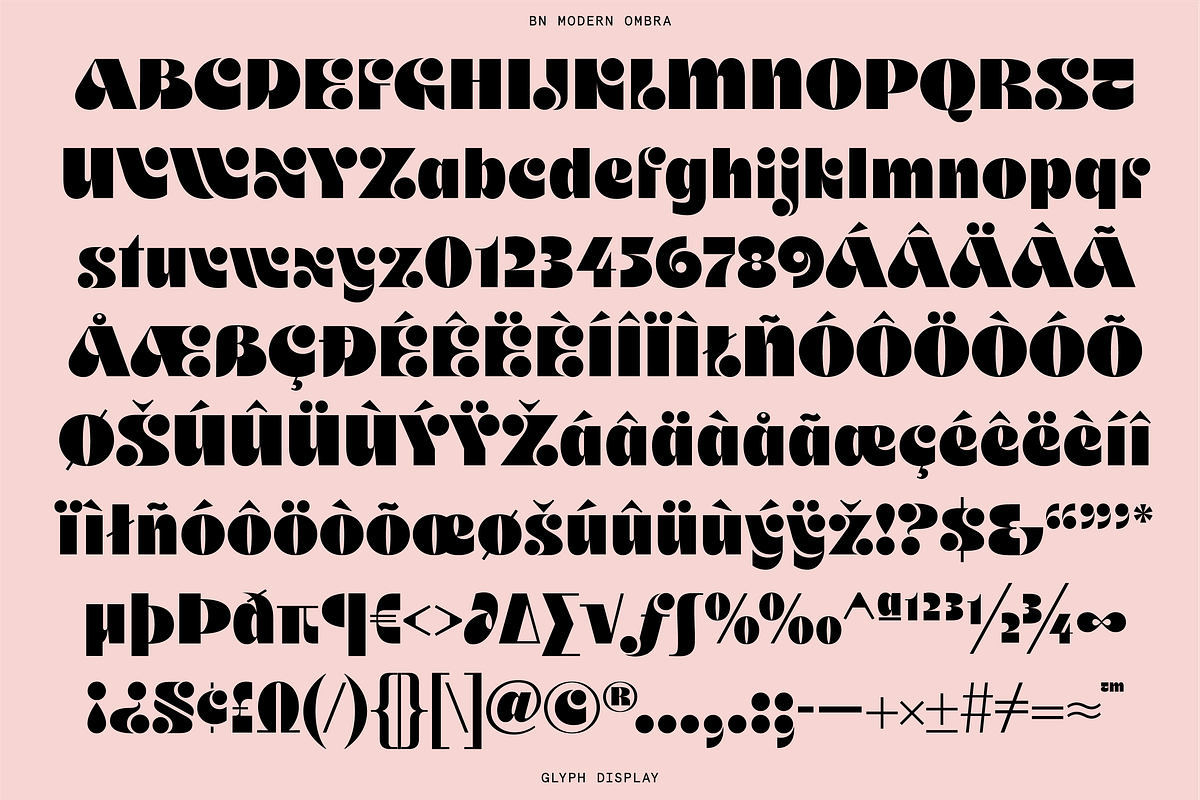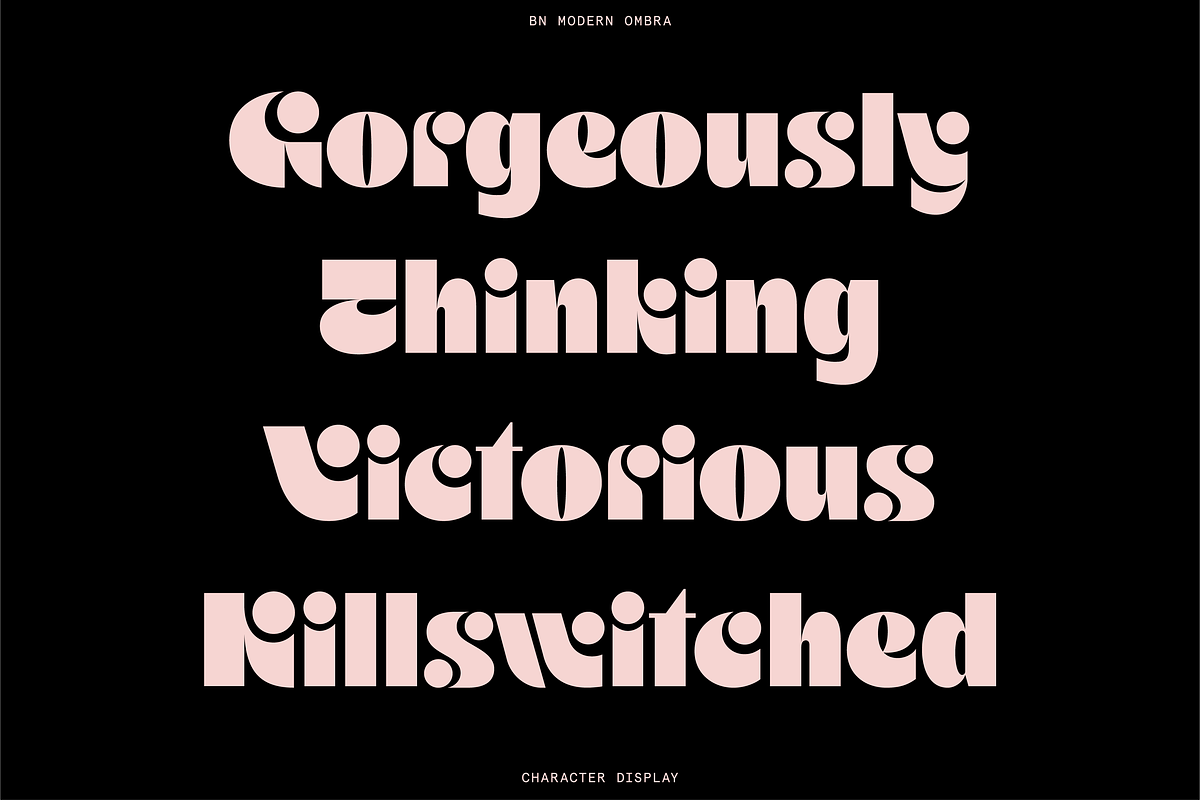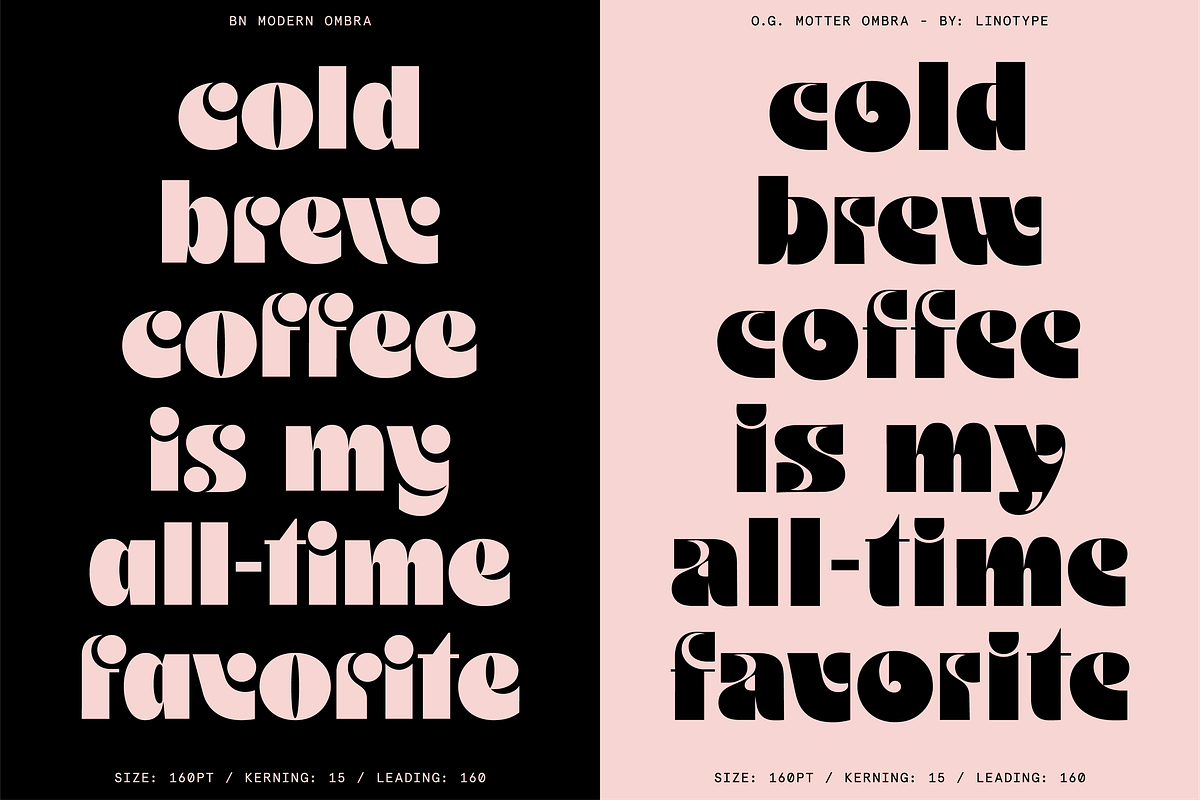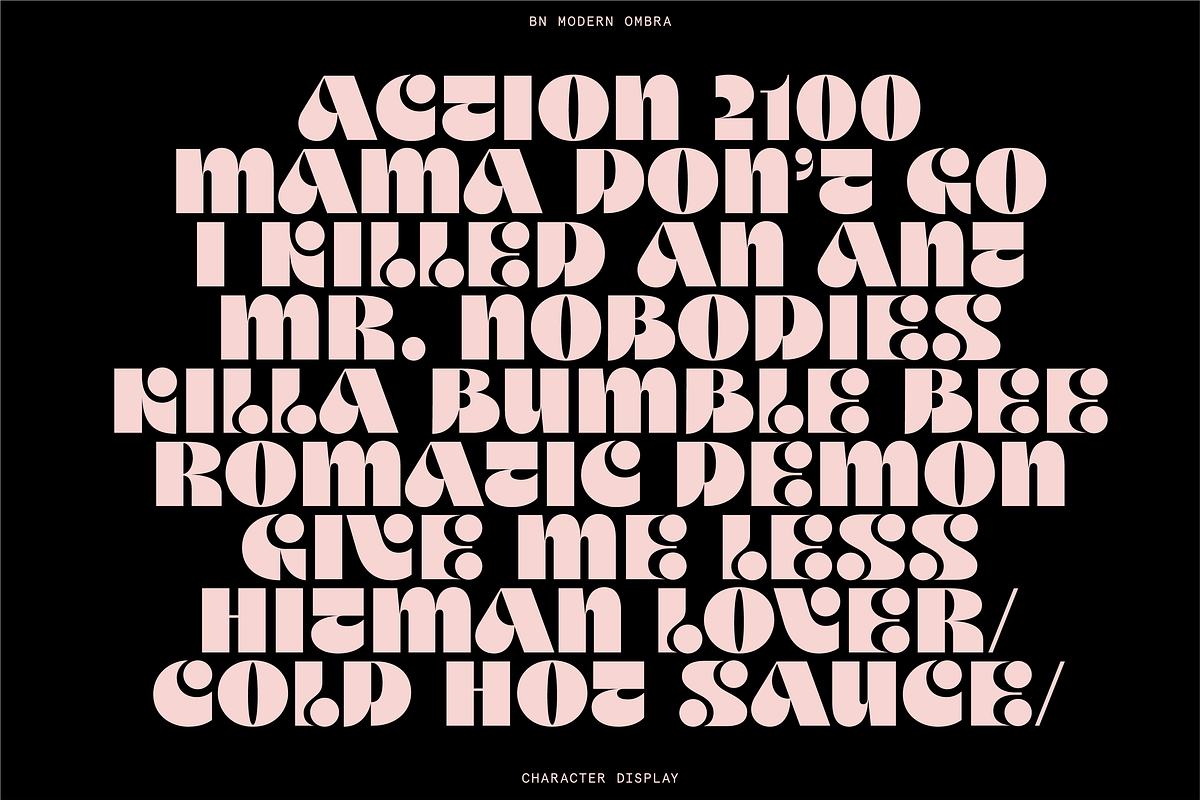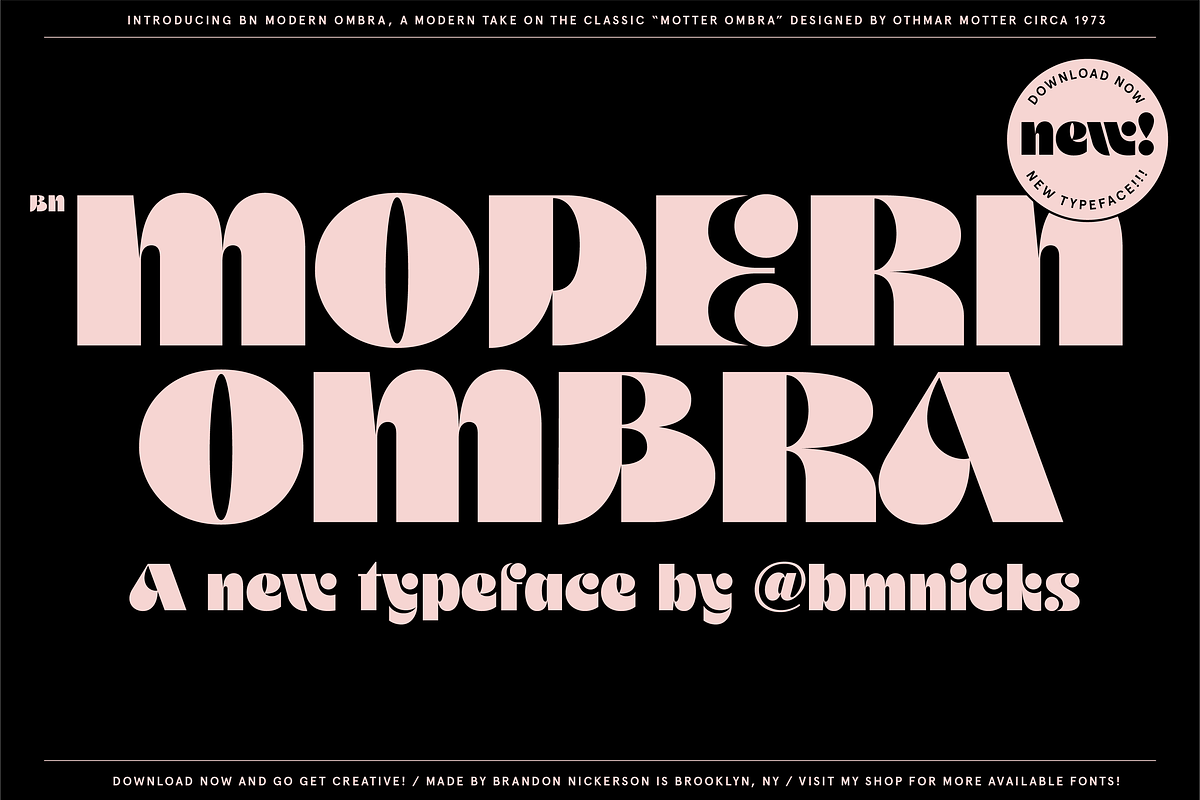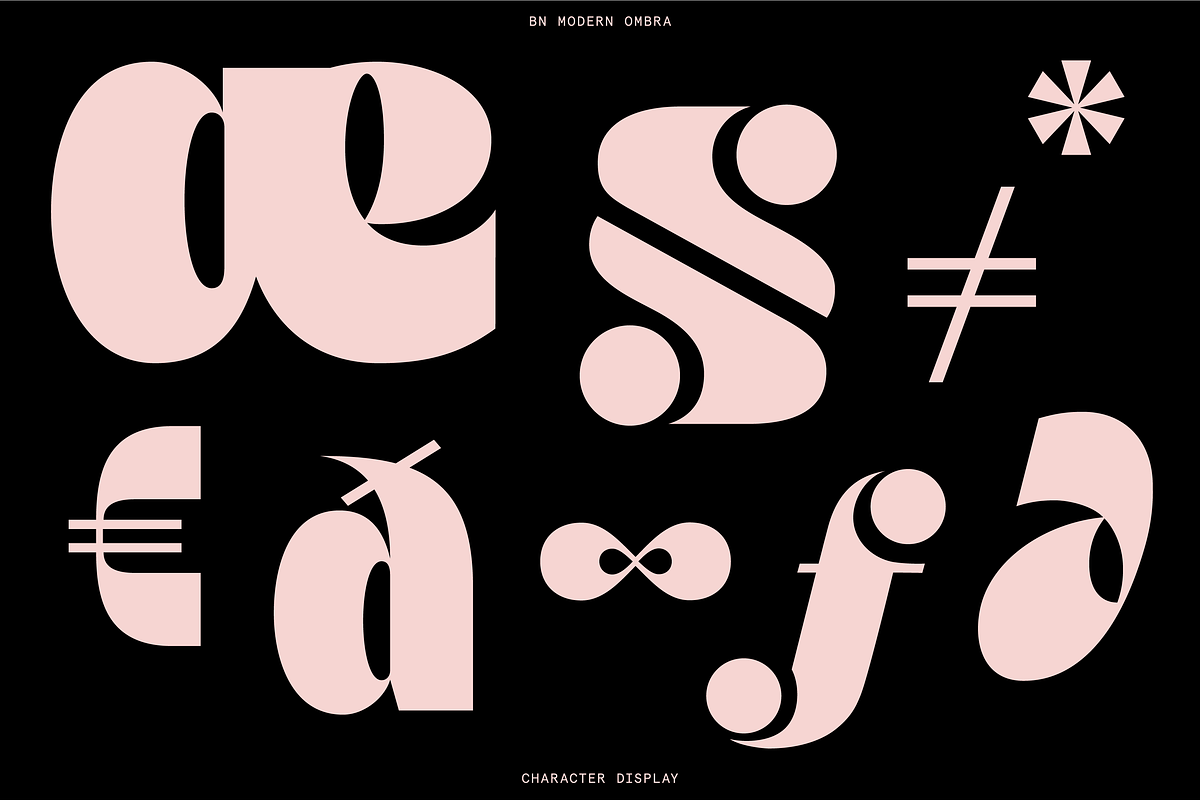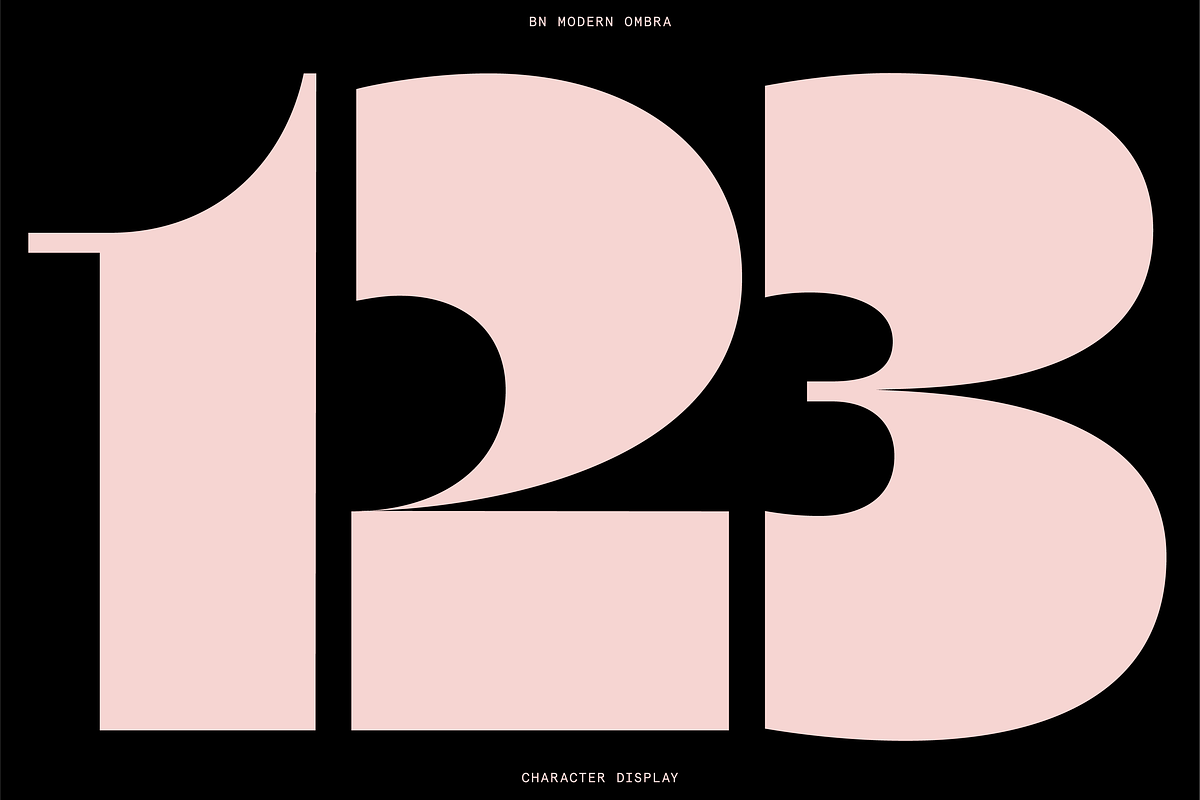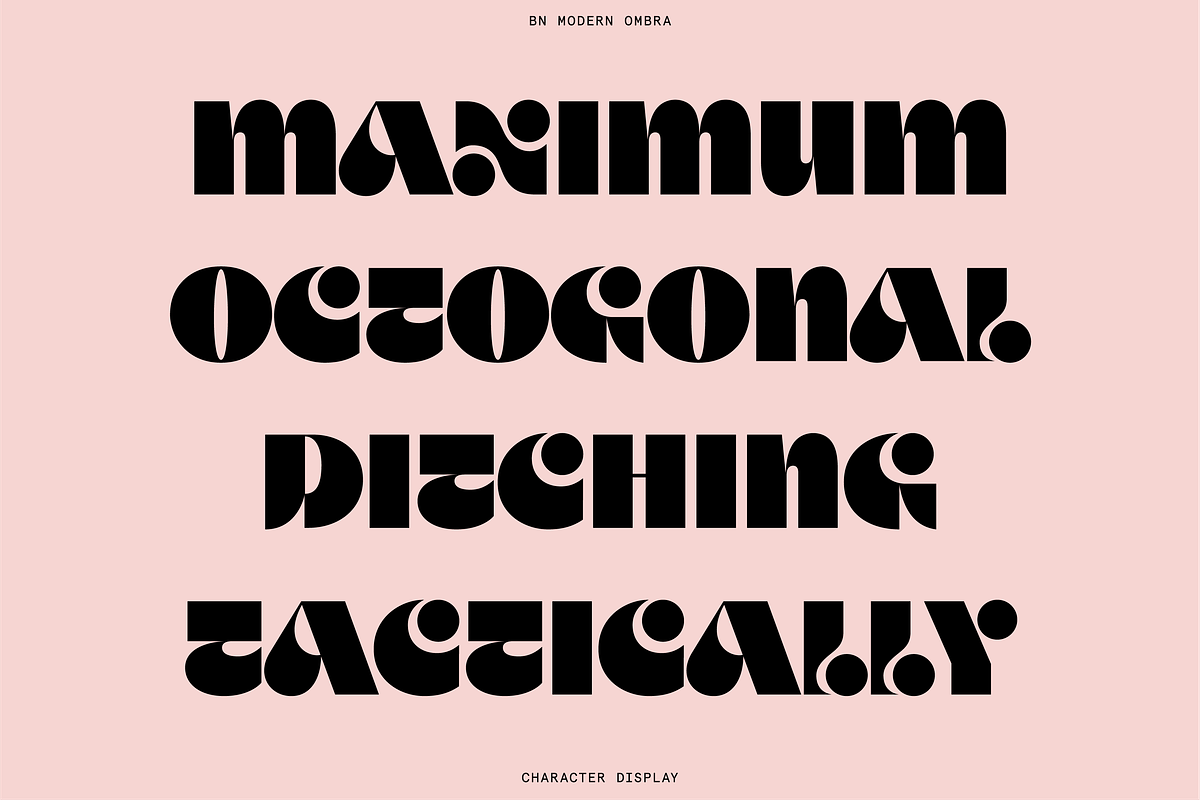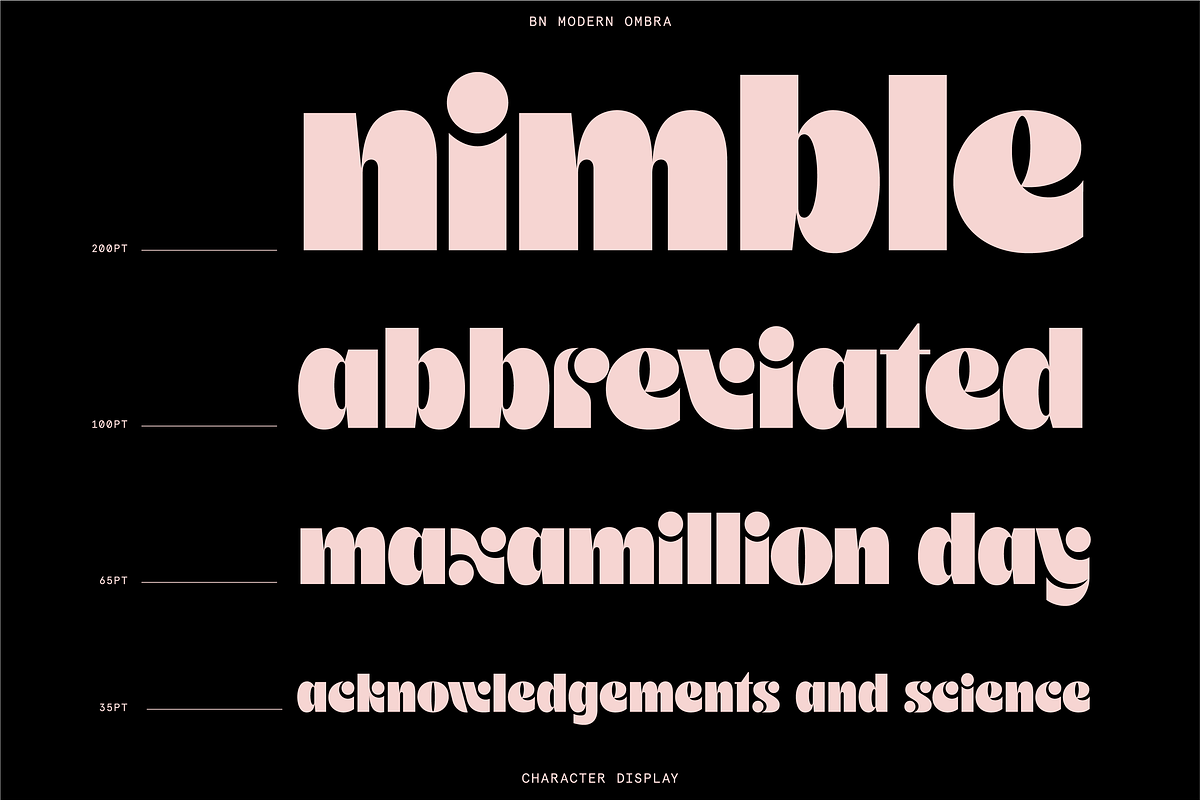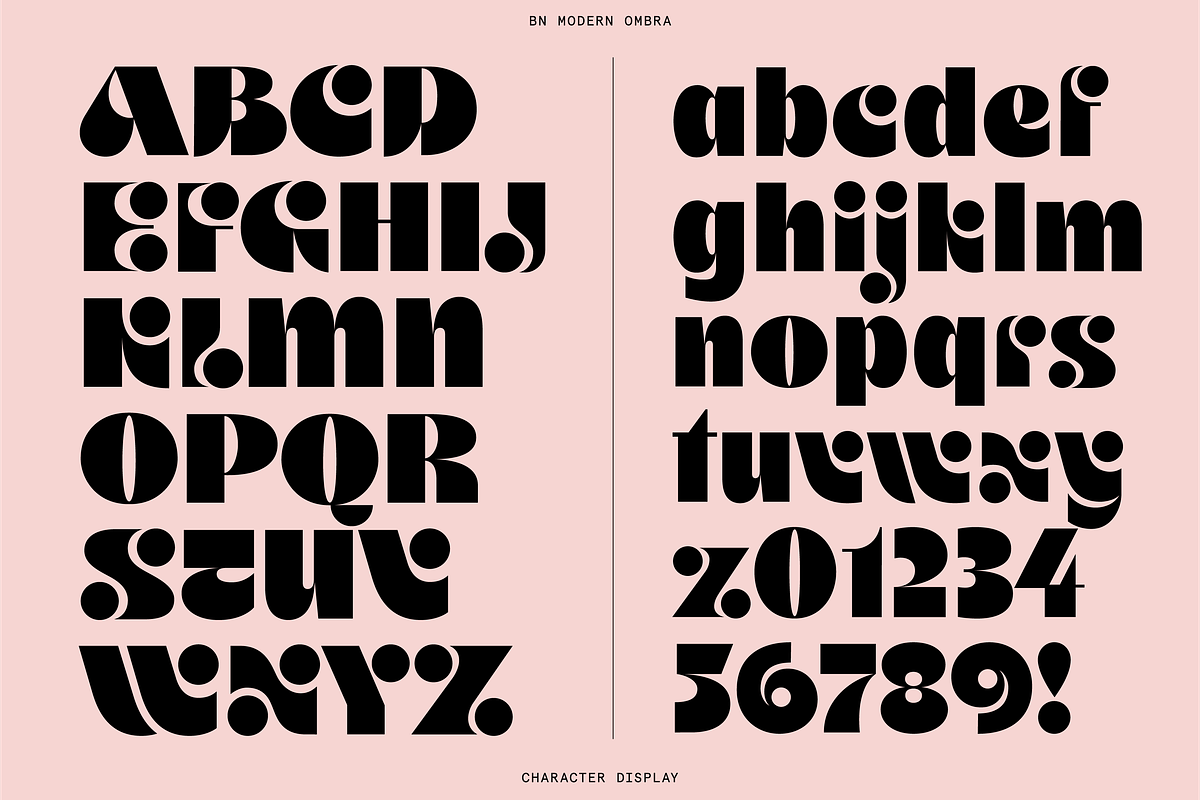
Modern Ombra - Quirky Display Font
Introducing BN Modern Ombra!
A modern take on the classic “Motter Ombra” originally designed by Othmar Motter in 1973 and digitized by Linotype.
The typeface came to be while creating a logotype for a client. The simplified result of the custom lettering sparked an idea to recreate the entire font. Using geometric circles vs. teardrop shapes and completely remodeling certain letters, BN Modern Ombra was born. -- The font is perfect for layout displays, headlines and is basically an automatic logo maker. Download now while it’s on sale, only for a limited time!